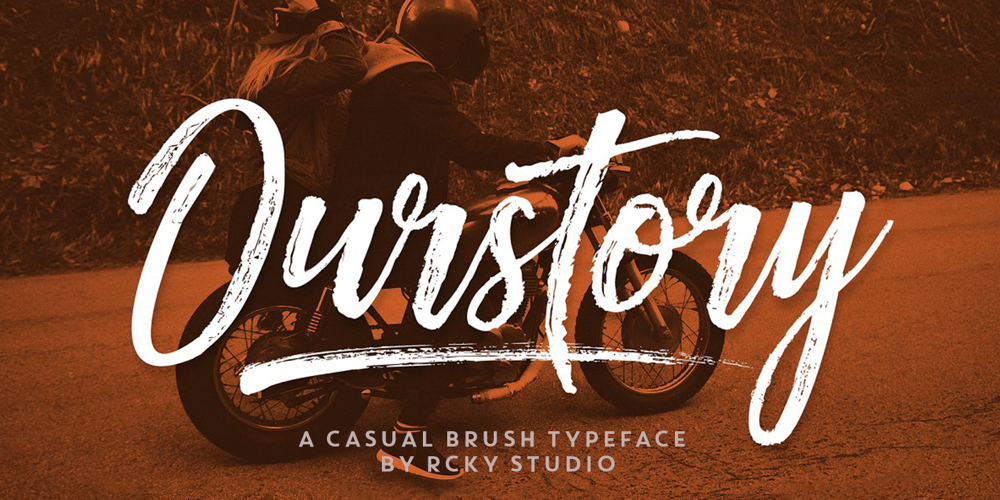
Ourstory Font Family was designed by Rizki Agam Fonna and published by RCKY Studio. Ourstory contains 2 styles and family package options. Ourstory is a textured brush font, a contemporary approach to design, naturally handcrafted with an irregular baseline. Also with the addition of Extra Swashes. Harmony to combine with Ourstory Script. Suitable for use in title design. Such as clothing, invitations, book titles, stationery designs, quotes, branding, logos, greeting cards, t-shirts, packaging designs, posters, and more. Ourstory Font includes a full set of upper and lower case letters, as well as multi-language support, numbers, punctuation, ligatures.Thanks so much for looking and let me know if you have any questions.